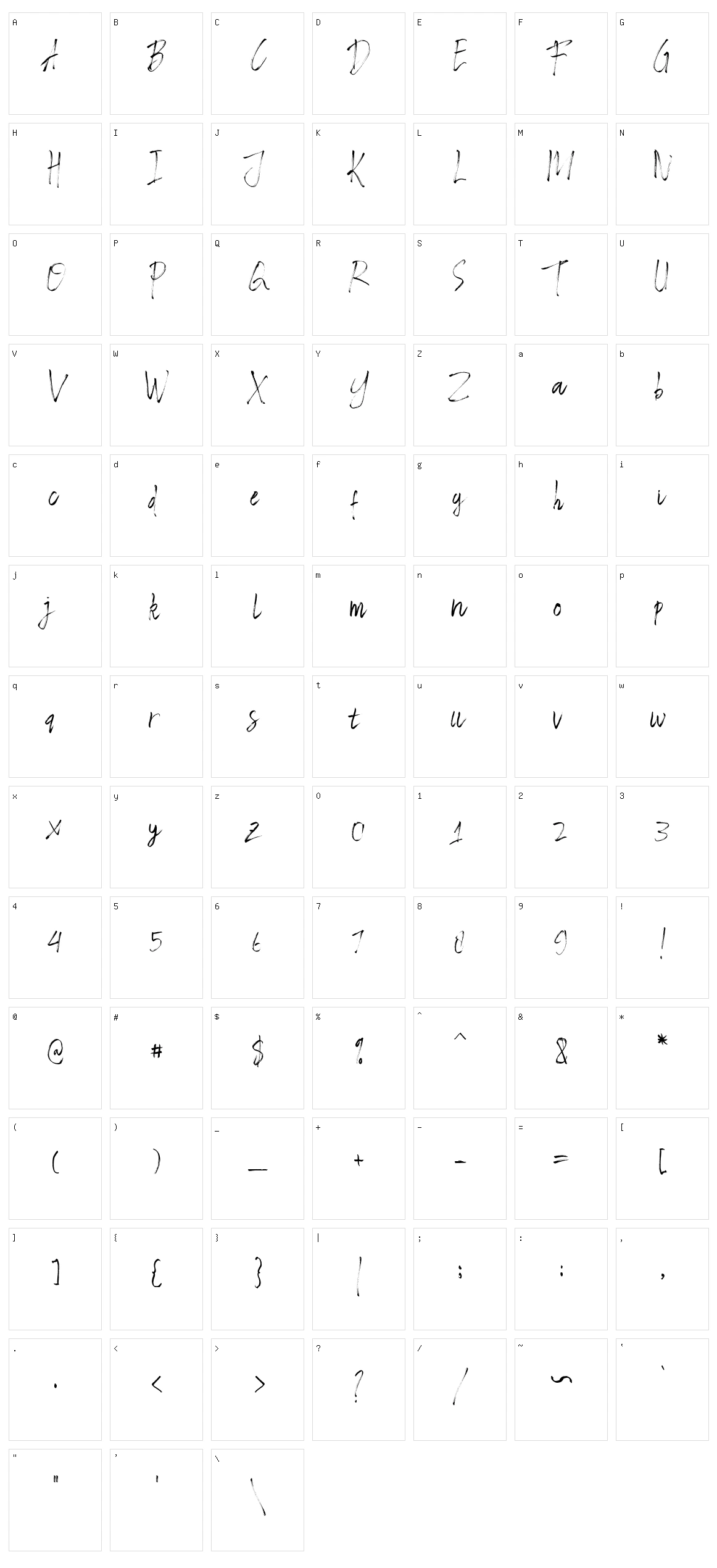
The free font Raster Brush is carefully designed by Bandit handmade, showcasing a thoughtful balance of creativity and usability and falls under the Script font style. When you download the ZIP file, it contains only 544.99 KB of font files, making it lightweight and quick to download. Please review the license details below to understand permitted usage and distribution rights. If license information is not available, we recommend using this font for personal projects only or contacting the author directly for commercial usage permissions.